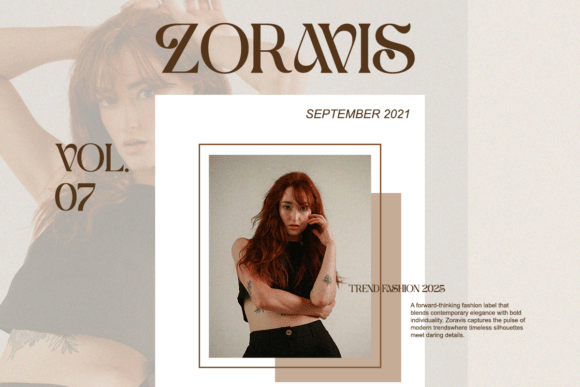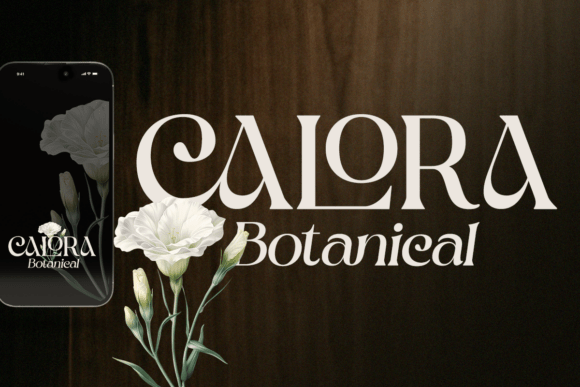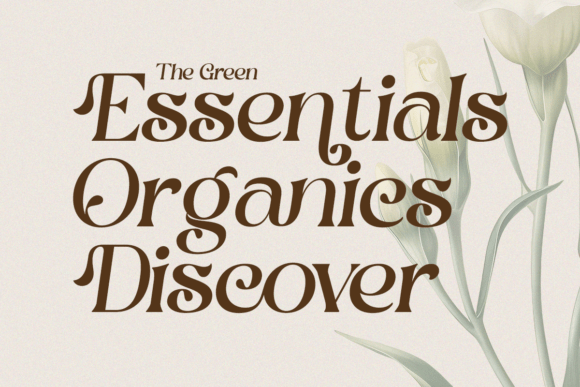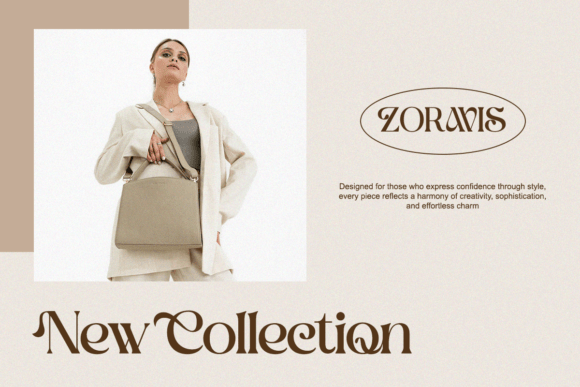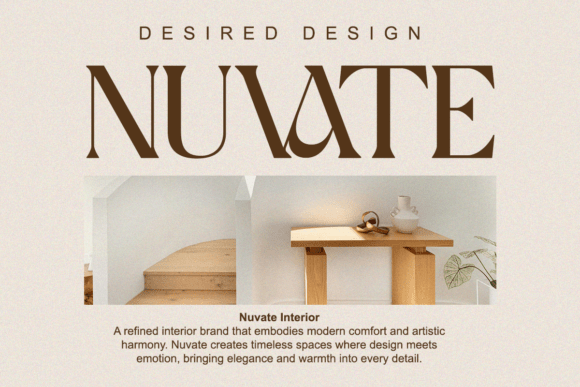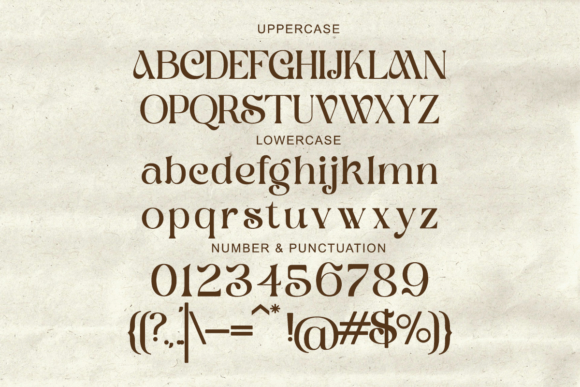
Introduction to Shanoy Font
Imagine you’re working on a high-end beauty brand’s new campaign, and you’re struggling to find the perfect font to match your vision. The words “elegant,” “sophisticated,” and “timeless” come to mind, but nothing seems to capture the essence you’re looking for. That’s where the breathtakingly beautiful Shanoy Font comes in – a modern serif display font that masterfully combines traditional elegance with a bold, contemporary twist.
As a designer, you’re always on the lookout for that one special design resource that can elevate your creative project and make it truly stand out. With Shanoy Font, you’ll have the perfect tool to transform simple text into a curated visual experience that demands attention and leaves a lasting impression. This stunning font is available for free download, making it an invaluable asset for any designer looking to add a touch of high quality to their work.
Key Features of Shanoy Font
- High-quality design resource perfect for creative projects, including logos, graphics, and typography.
- Unique, modern font design with a transparent background, ideal for backgrounds, overlays, and text effects.
- Supports a wide range of languages, making it a versatile choice for international projects.
- Designed to be highly customizable, with a wide range of style options and effects available in popular graphic design software.
Honest Review: Shanoy Font
I recently came across the Shanoy Font while searching for high-quality fonts for a creative project. The font is available for a free download, which is a major plus in my book.
The font has a unique, modern design that is perfect for a variety of projects. The letters have a clean, elegant look that works well for both digital and print applications.
- ✨ Unique and modern design
- ✨ High-quality font with transparent background
- ✨ Suitable for a wide range of creative projects
- ⚠️ Limited character set (only includes a few styles and weights)
- ⚠️ Not ideal for projects requiring a large font library
Overall, I’m impressed with the Shanoy Font. It’s a great addition to any design resource, and the fact that it’s free makes it a no-brainer for anyone looking for a high-quality font for their creative project.
While it may have some limitations, the Shanoy Font is a solid choice for designers looking for a unique and modern font. I would definitely recommend it to anyone looking to add some flair to their design.
Introduction to Shanoy Font
Shanoy Font is a high-quality design resource that can elevate your creative project with its unique and stylish characters. Available for free download, this font is perfect for designers and artists looking to add a touch of sophistication to their work.
Tips for Getting the Most Out of Shanoy Font
To get the most out of Shanoy Font, use it with a transparent background to create a clean and modern look. Experiment with different font sizes and styles to add depth and visual interest to your designs.
Shanoy Font is perfect for:
- Designing business cards and marketing materials
- Creating social media graphics and ads
- Developing branding materials for startups and small businesses